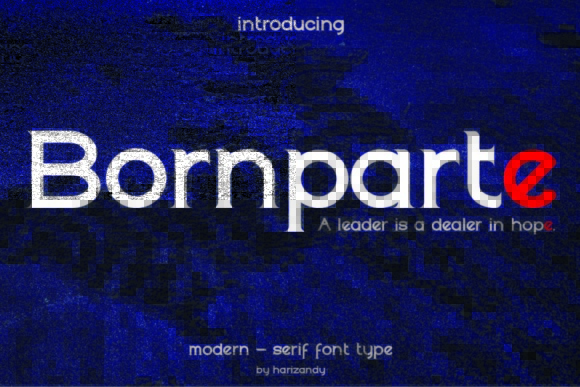
Bornparte Font: A Journey Through Elegance and Distinction
In a digital world saturated with visual clutter, your designs demand a font that cuts through the noise and leaves an indelible mark. Introducing Bornparte Font, the pinnacle of sophistication and grace in the realm of typography. This meticulously crafted display serif font is not just a collection of letters; it's an artistic symphony that elevates your creations to new heights of elegance.
Bornparte Font's finely tuned curves and sweeping serifs exude a timeless charm that captivates audiences. Its dual set of uppercase characters provides versatility like no other, allowing you to effortlessly create designs that are both visually striking and deeply impactful. Whether you're crafting a brand identity that exudes authority and refinement, or designing a poster that demands attention from across the room, Bornparte Font is your trusted companion.
With its inherent beauty and versatility, Bornparte Font seamlessly adapts to a multitude of design endeavors. Unleash your creativity and witness the transformation as your website, editorial layouts, headlines, and logos are imbued with an aura of distinction. Bornparte Font effortlessly elevates the ordinary, turning your designs into captivating masterpieces that resonate with audiences.
But Bornparte Font is more than just a tool for visual communication; it's an extension of your creative spirit. As you pour your passion into your designs, Bornparte Font becomes a faithful companion, faithfully capturing the essence of your vision and translating it into a visual masterpiece. Its carefully crafted characters become the building blocks of your imagination, helping you craft designs that evoke emotion, convey messages, and leave lasting impressions.
So, embark on a creative journey with Bornparte Font as your guide. Let its timeless elegance elevate your designs and captivate audiences with its inherent beauty. Experience the joy of creating with a font that not only enhances your work but also inspires your imagination. Bornparte Font: The key to unlocking a world of visual brilliance.